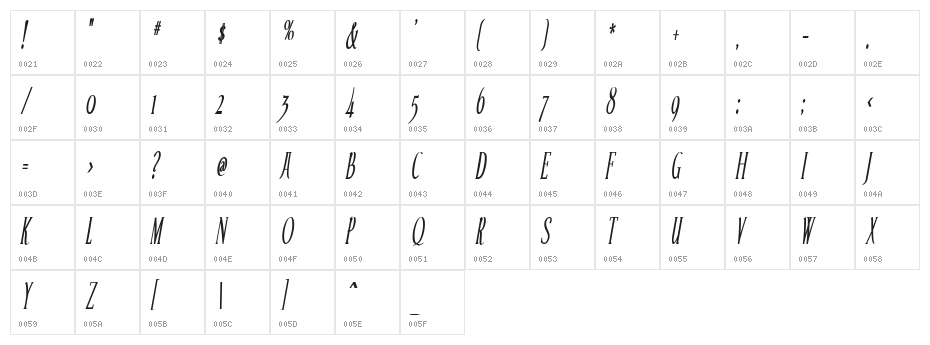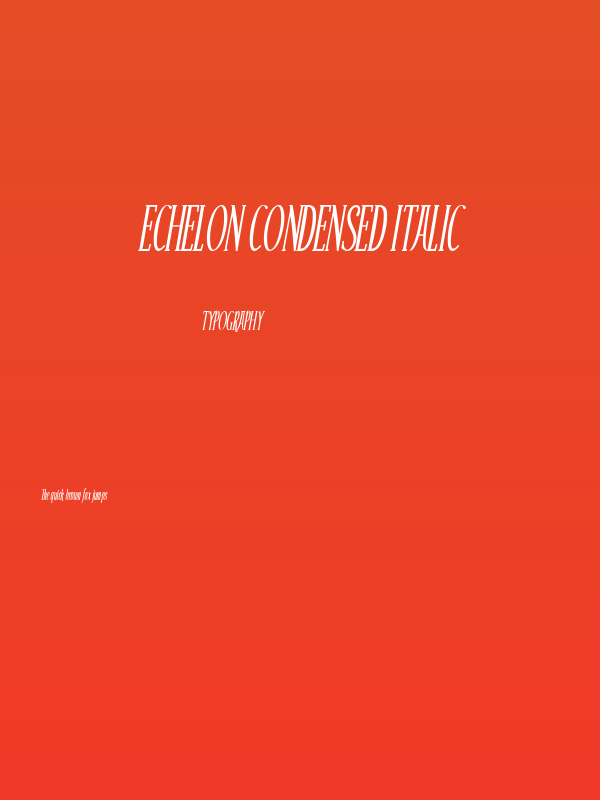
Echelon Condensed Italic Font
Echelon Condensed Italic Description
This font exhibits a sleek and modern aesthetic with its condensed and italicized form. The characters are elongated, giving a sense of elegance and sophistication. The strokes are smooth and consistent, with a slight slant that adds dynamism and movement to the text. The uppercase letters are tall and commanding, while the lowercase letters maintain a balanced proportion, ensuring readability. The numerals are distinct and clear, complementing the overall style. Special characters are well-integrated, maintaining the font's cohesive look. This typeface is ideal for projects that require a touch of modernity and style.
| Use Case | Headlines, Logos, Editorials |
| Proposed Projects | Ideal for fashion magazines, luxury branding, modern advertising, and stylish editorial layouts. |